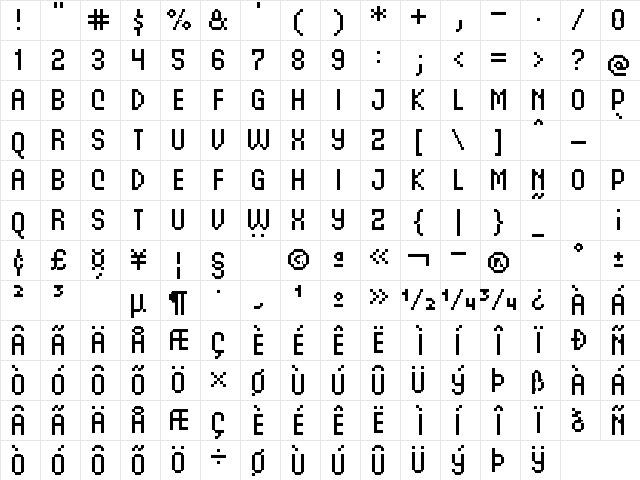
UF Android Menu Regular
Foundry: Ultrafonts
Designer: Miguel Hern￿ez
UF Android Menu is a composed and adaptable typeface that performs quietly and consistently across a wide range of design contexts.